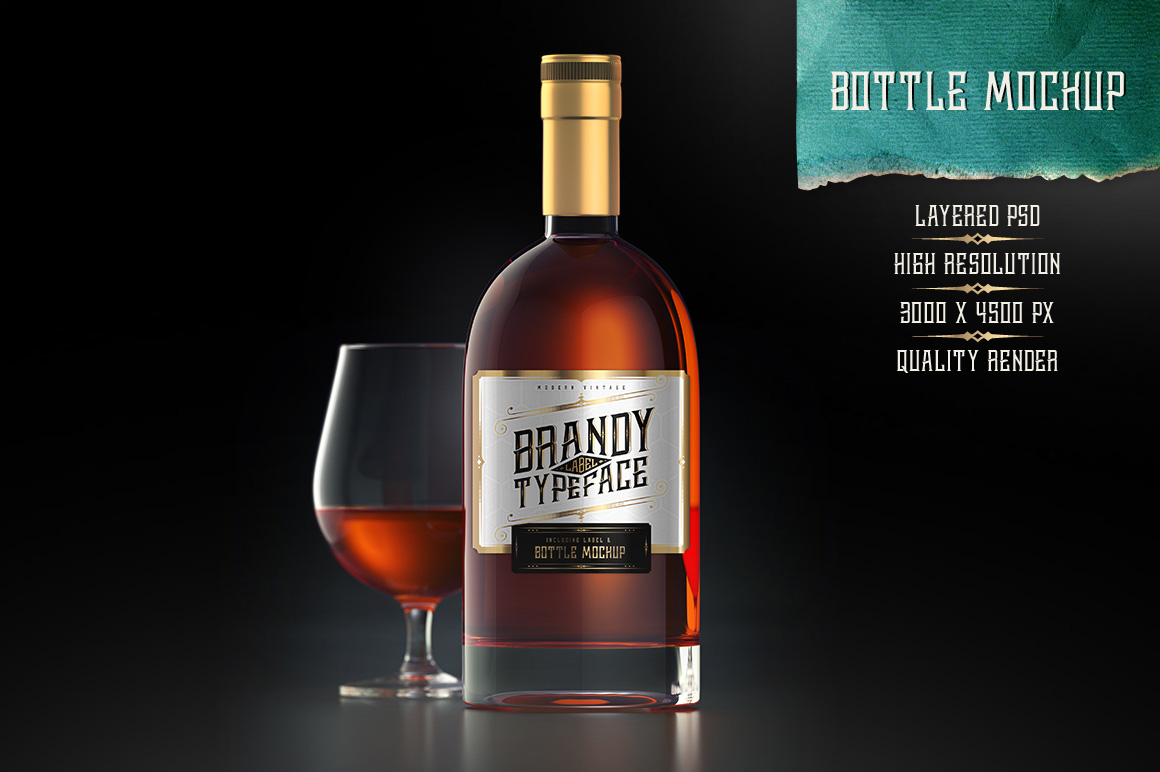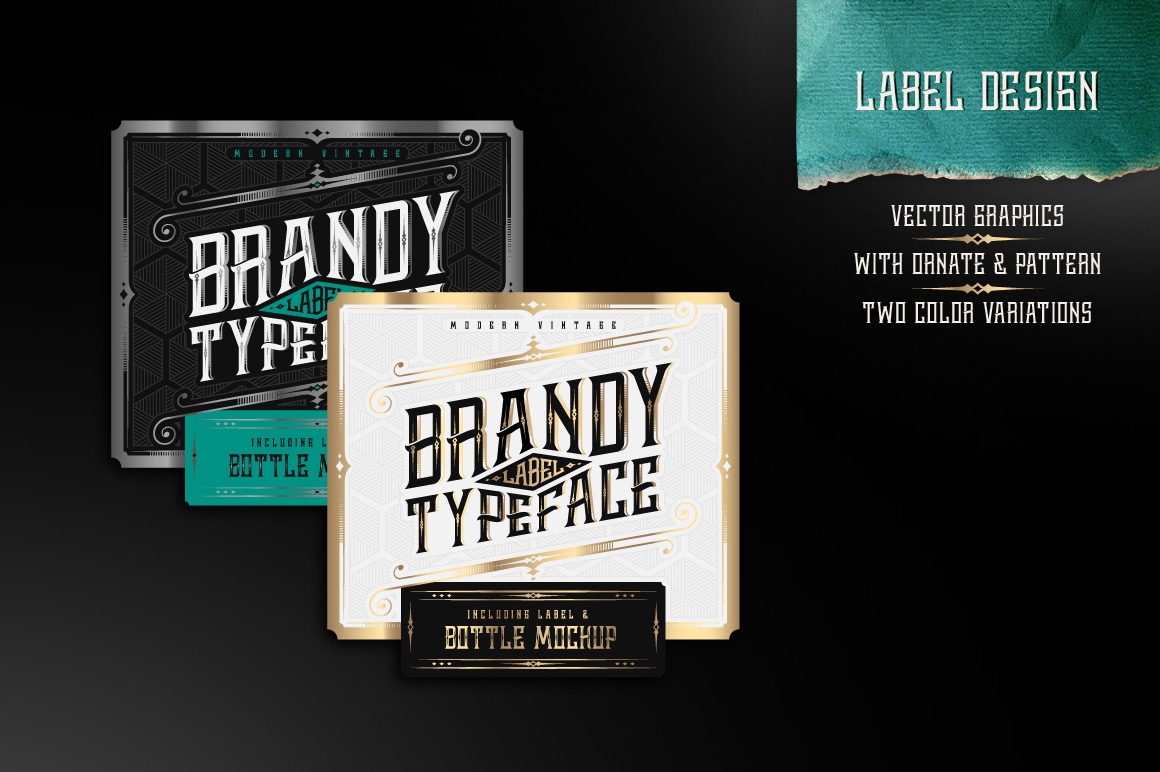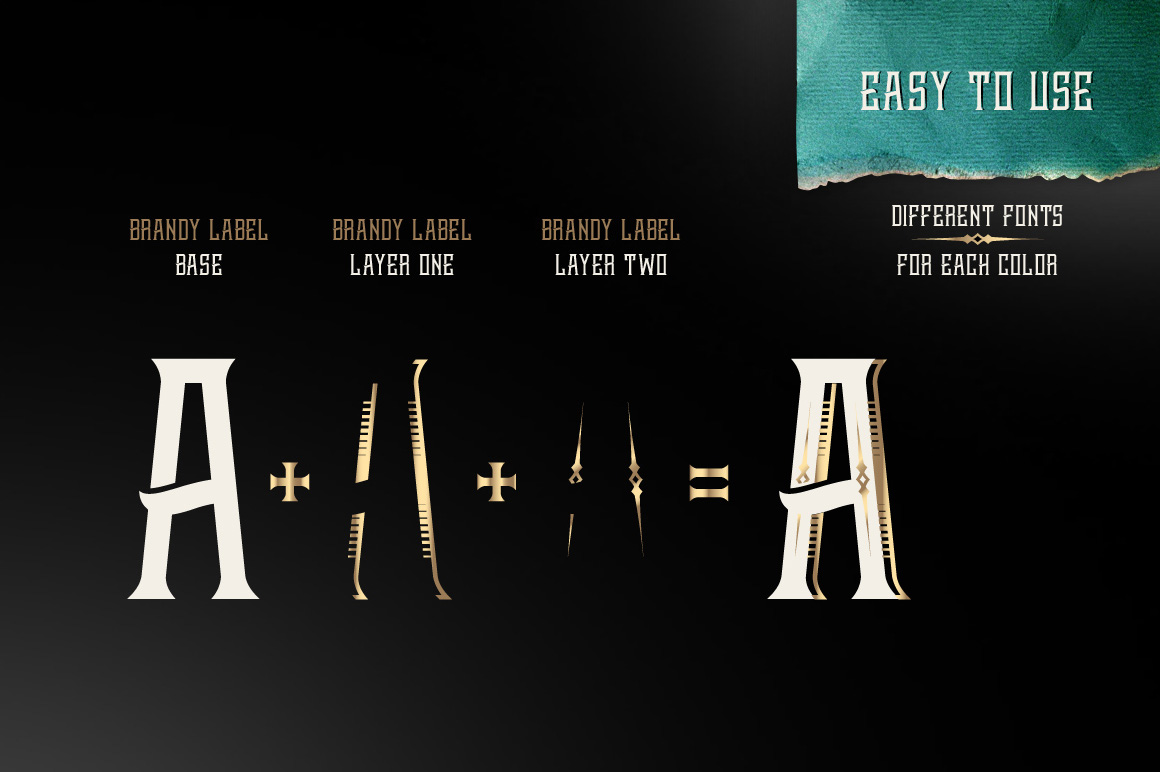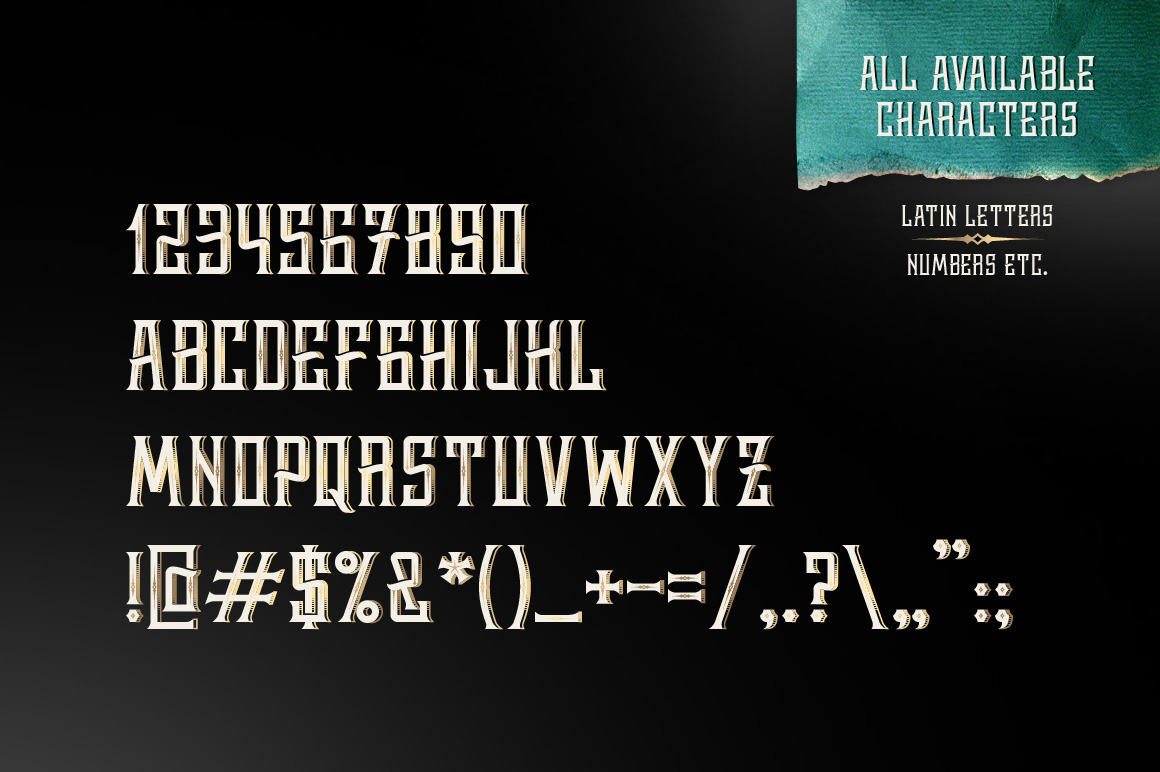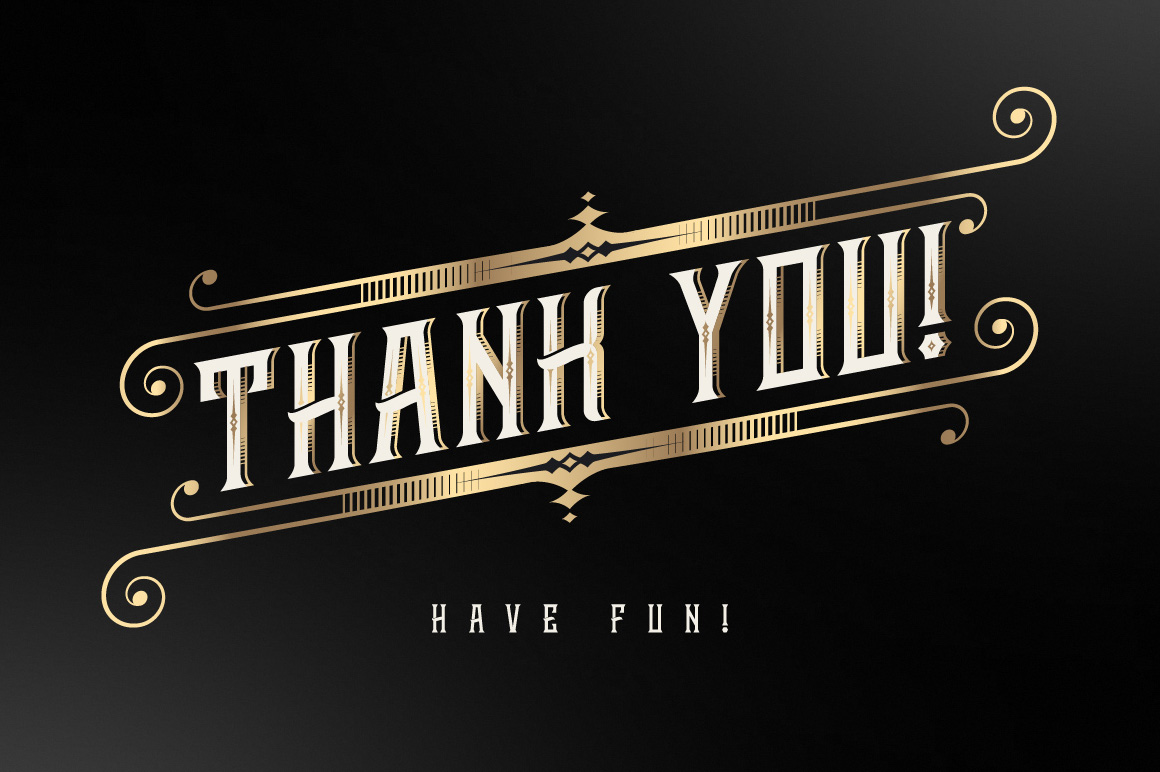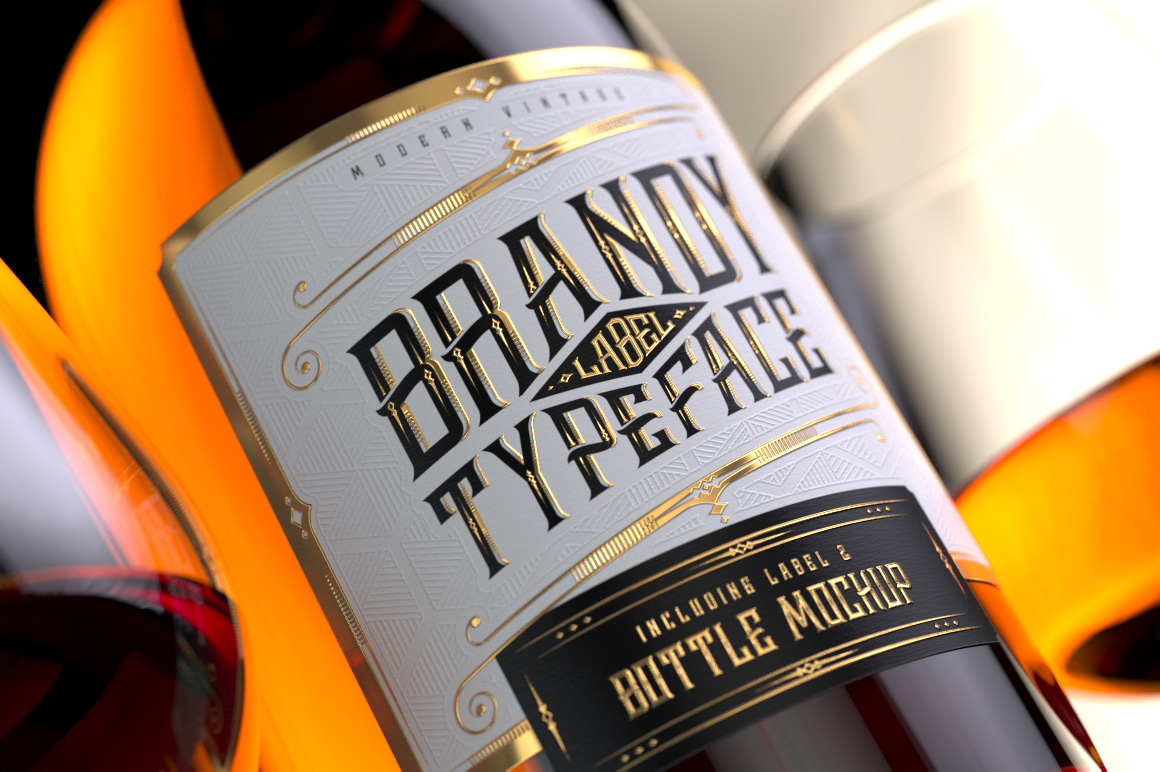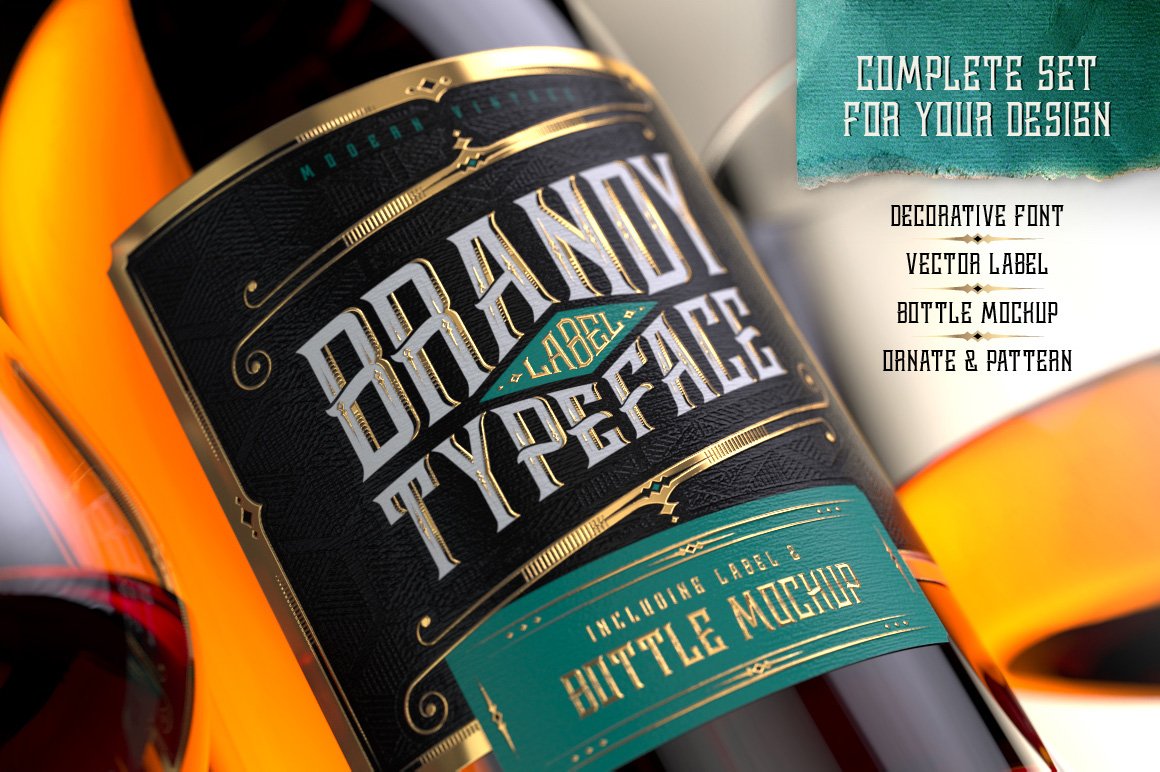
Unlock the Art of Premium Label Design with Brandy Label Font
Do you remember that moment when you finally landed a major client, and you were tasked with creating a luxurious brand image? The pressure was on, but you knew that a premium label design would make all the difference. You spent hours searching for the perfect font, only to find that it just didn’t quite fit the bill.
That’s where Brandy Label Font comes in – a stunning font set designed specifically to create high-quality, premium labels. With four unique fonts to choose from, you can layer and combine them to create a truly bespoke look that will elevate your brand to new heights. Whether you’re a seasoned designer or just starting out, Brandy Label Font is a valuable addition to your toolkit.
So why settle for a generic font when you can unleash your creativity with Brandy Label Font? This versatile font set is perfect for designers who want to add a touch of sophistication and elegance to their label designs.
Brandy Label Font Key Features
- Font Family: Brandy Label is a unique, high-quality font family designed specifically for labeling wine and spirits bottles. It includes 3 font styles: Regular, Italic, and Bold.
- Font Size: Brandy Label font is designed to be used at a large size, typically between 24-48 points, to ensure readability on wine and spirits labels.
- Unique Characteristics: The font features a classic, elegant design with a touch of sophistication, making it perfect for high-end wine and spirits labels. The font also includes special characters and ligatures to enhance readability.
Brandy Label Font Review
Overall, I think the Brandy Label Font has some great qualities, but also some limitations that might make it less suitable for certain projects. ✨ Let’s dive in and explore.
- ✨ The font has a beautiful, elegant feel to it, making it perfect for luxury or high-end branding.
- ✨ The Brandy Label Font is highly customizable, allowing you to adjust the size, color, and style to fit your needs.
- ✨ It’s available in a range of weights and styles, from light to bold, making it versatile for various applications.
- ⚠️ The font might be too ornate for some projects, making it difficult to read in smaller sizes or for those with visual impairments.
- ⚠️ It’s not suitable for digital use, as it can be pixelated and lose its elegance.
Overall, I’d say the Brandy Label Font is a great choice for print projects or branding that requires a touch of luxury. However, it might not be the best fit for digital or more straightforward projects.
Brandy Label Font is ideal for:
- Label design (e.g., wine, beer, liquor labels).
- Wedding and event invitations.